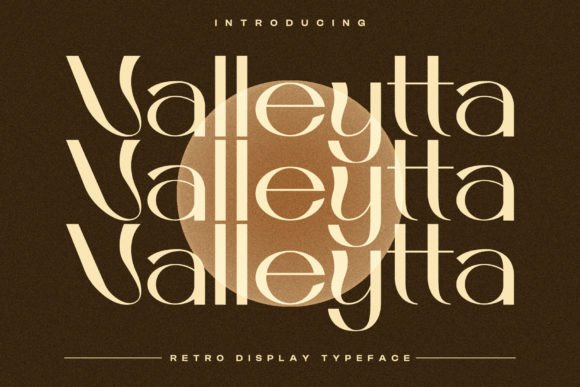
Valleytta Font
Embark on a typographic journey through the annals of time with Valleytta, the captivating display font family that exudes a timeless retro charm. This meticulously crafted font, brought to life by the skilled hands of Gunastudio, transcends the boundaries of ordinary typefaces, inviting you to embrace the essence of nostalgia and vintage aesthetics.
Valleytta's meticulously crafted glyphs dance across the digital canvas with an air of sophistication and elegance, reminiscent of the golden age of design. Each letterform is imbued with a distinct character, its curves and serifs whispering tales of a bygone era. The font's innate versatility lends itself effortlessly to a myriad of creative projects, from logos that evoke a sense of heritage to posters that capture the spirit of the past.
Unleash your creativity with Valleytta and craft logos that resonate with a sense of timelessness, leaving a lasting impression on your audience. Design invitations that transport recipients to a world of enchantment, where every word carries the weight of history. Create posters that evoke the allure of yesteryear, captivating viewers with their evocative charm.
Valleytta's versatility extends beyond these traditional applications, seamlessly adapting to the dynamic realm of social media. Craft eye-catching posts that demand attention in the crowded digital landscape. Design advertisements that cut through the noise, leaving a lasting mark on potential customers. Elevate your product packaging with labels that convey a sense of authenticity and distinction.
Valleytta's timeless appeal extends beyond the physical world, gracing the covers of books and magazines, imbuing them with an air of literary elegance. Its presence enhances the visual identity of brands, adding a touch of sophistication and heritage to their communications.
With Valleytta as your creative companion, you possess the power to transport your audience to a bygone era, where nostalgia and modern aesthetics intertwine. Its versatility knows no bounds, catering to a diverse range of projects, from retro-inspired designs to contemporary creations infused with a touch of vintage charm.
Embrace the allure of Valleytta and embark on a creative journey that transcends time. Let its timeless beauty captivate your audience, leaving an indelible mark on their hearts and minds.